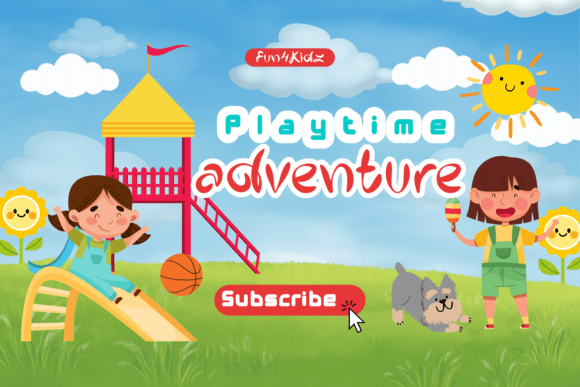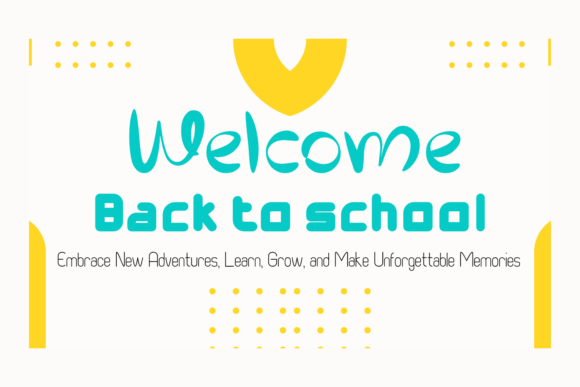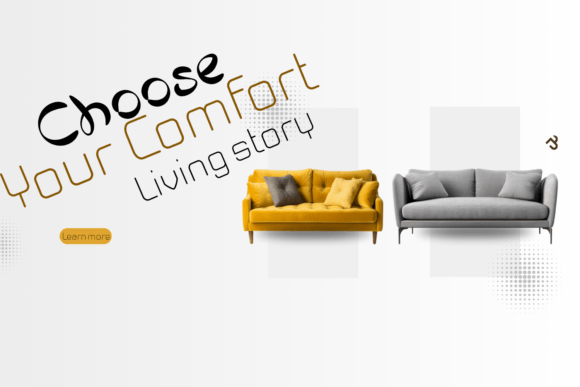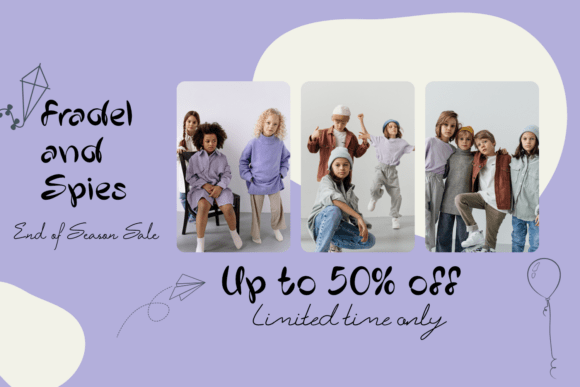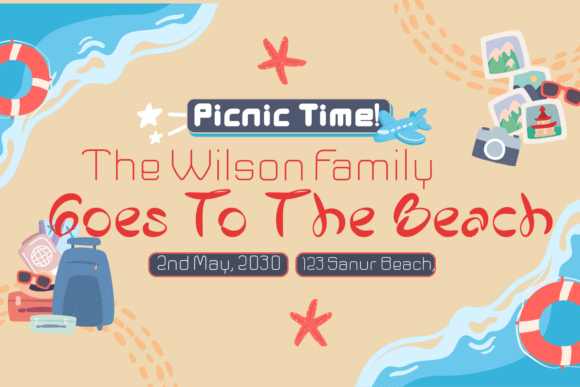
Introduction to Murisa Marsha Font
Murisa Marsha is a joyful and artistic display font that radiates charm and expressiveness.
With its flowing script forms and whimsical character, it’s perfect for creative projects that seek a playful and unique vibe—whether you’re designing for party invites, children’s book covers, or quirky branding This font blends bold personality with stylish flair.